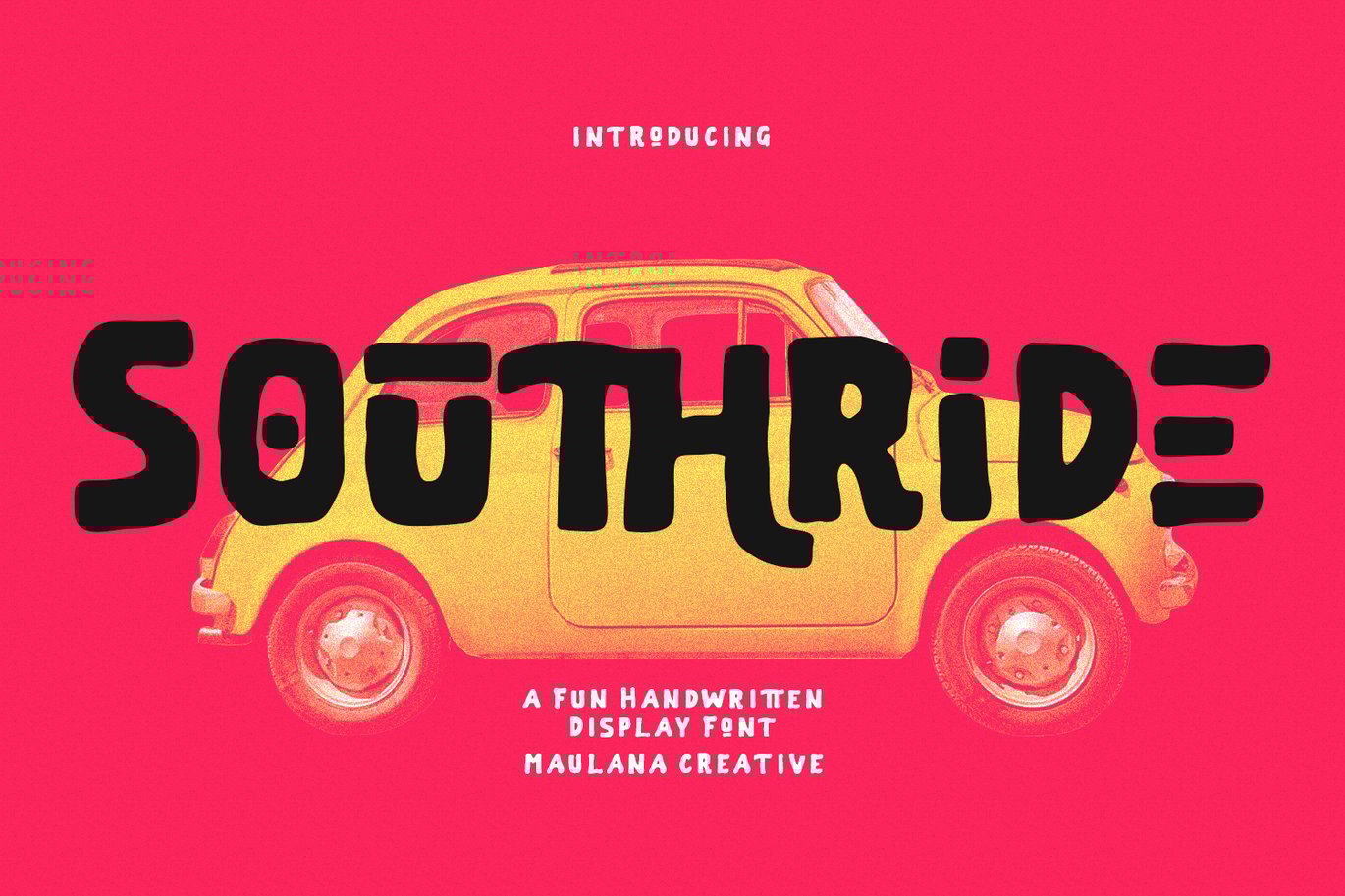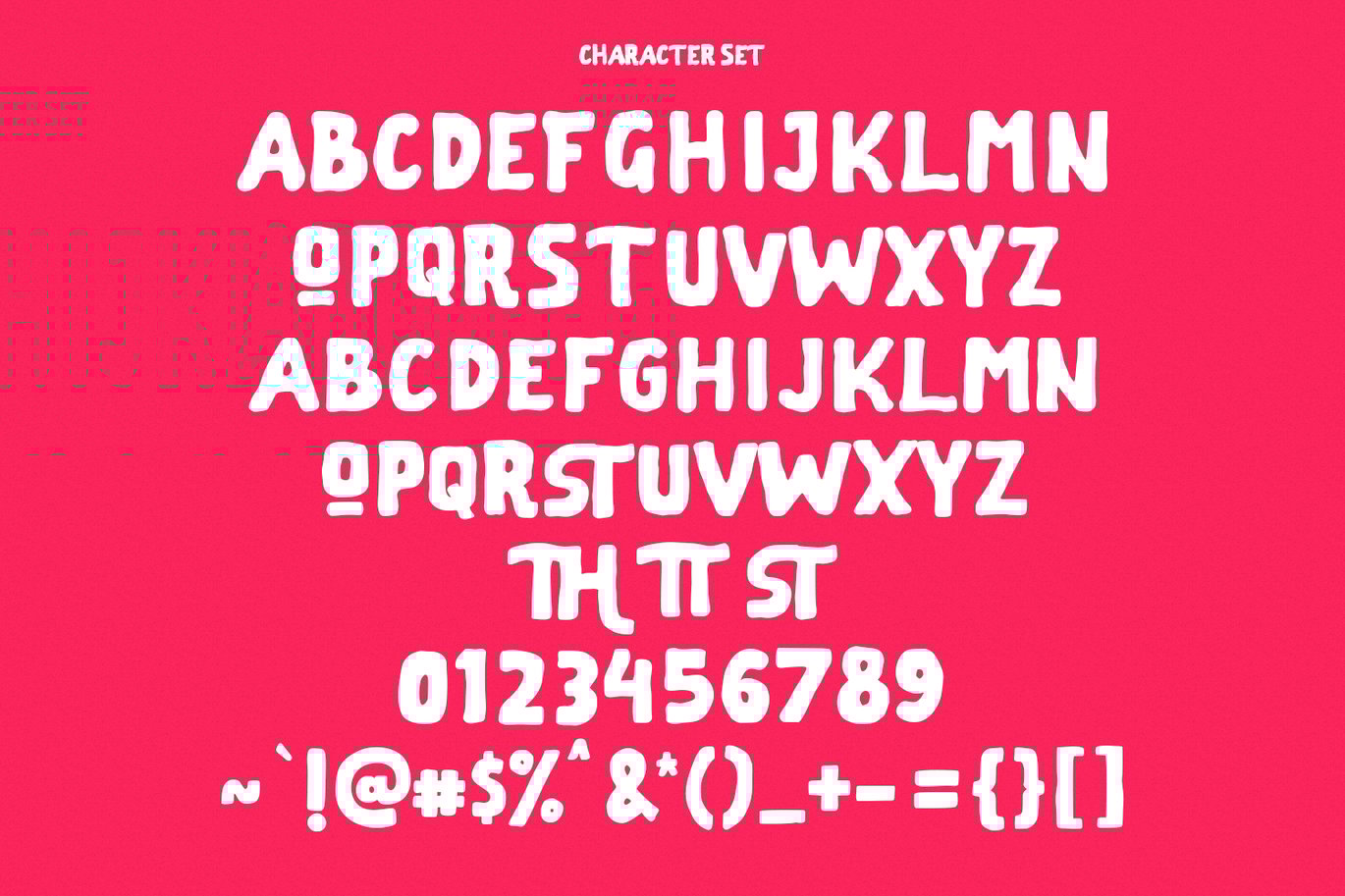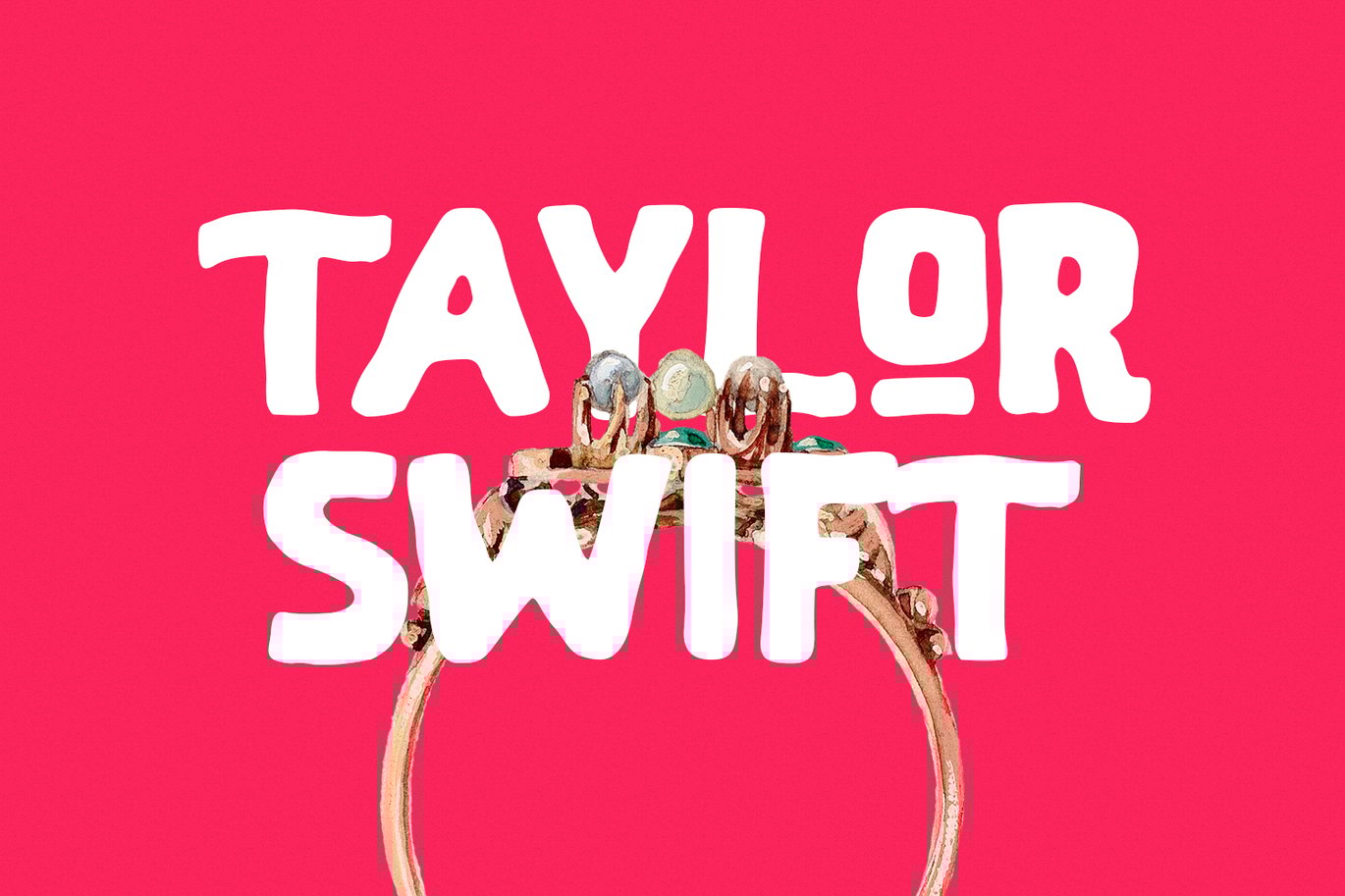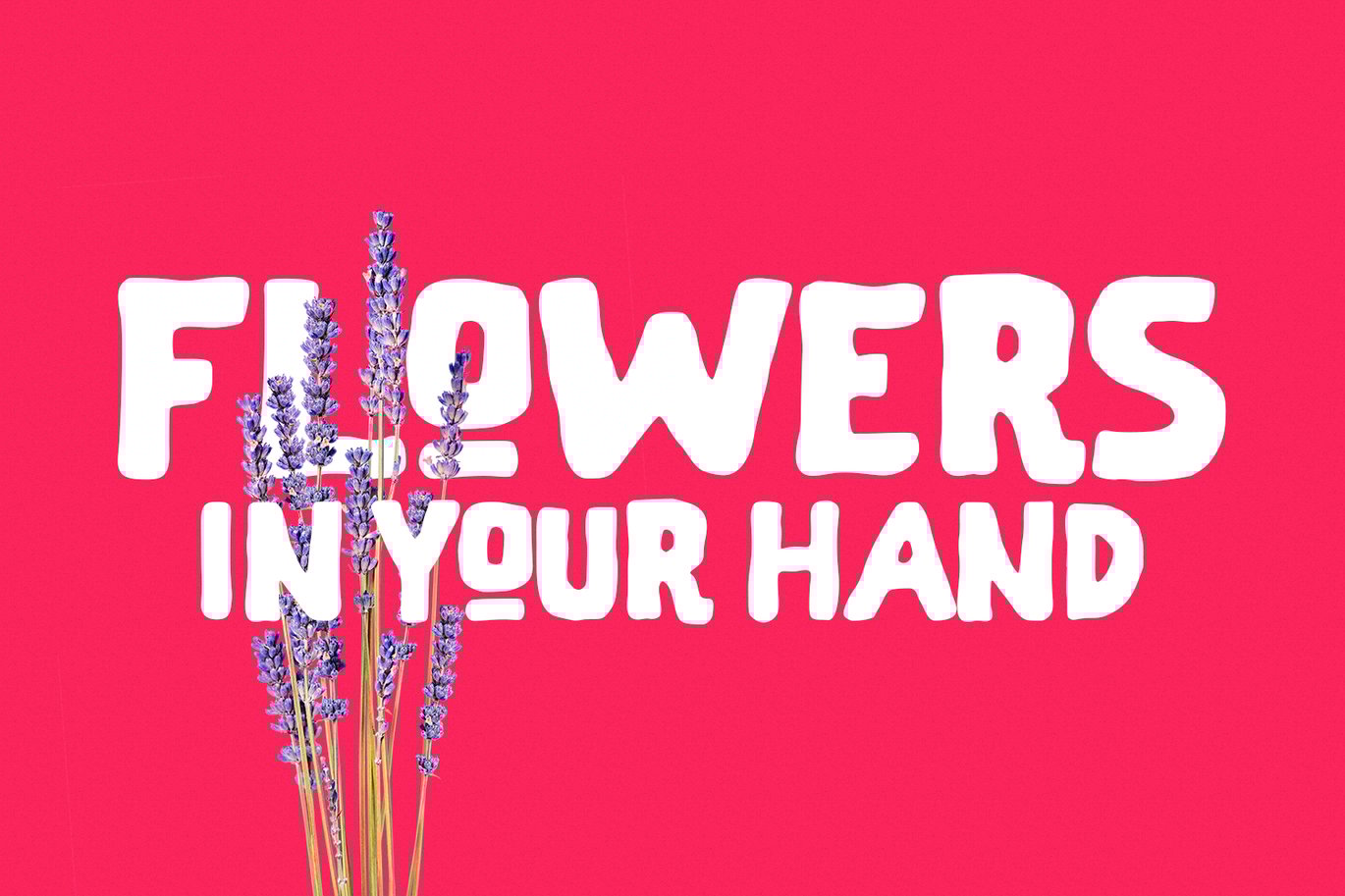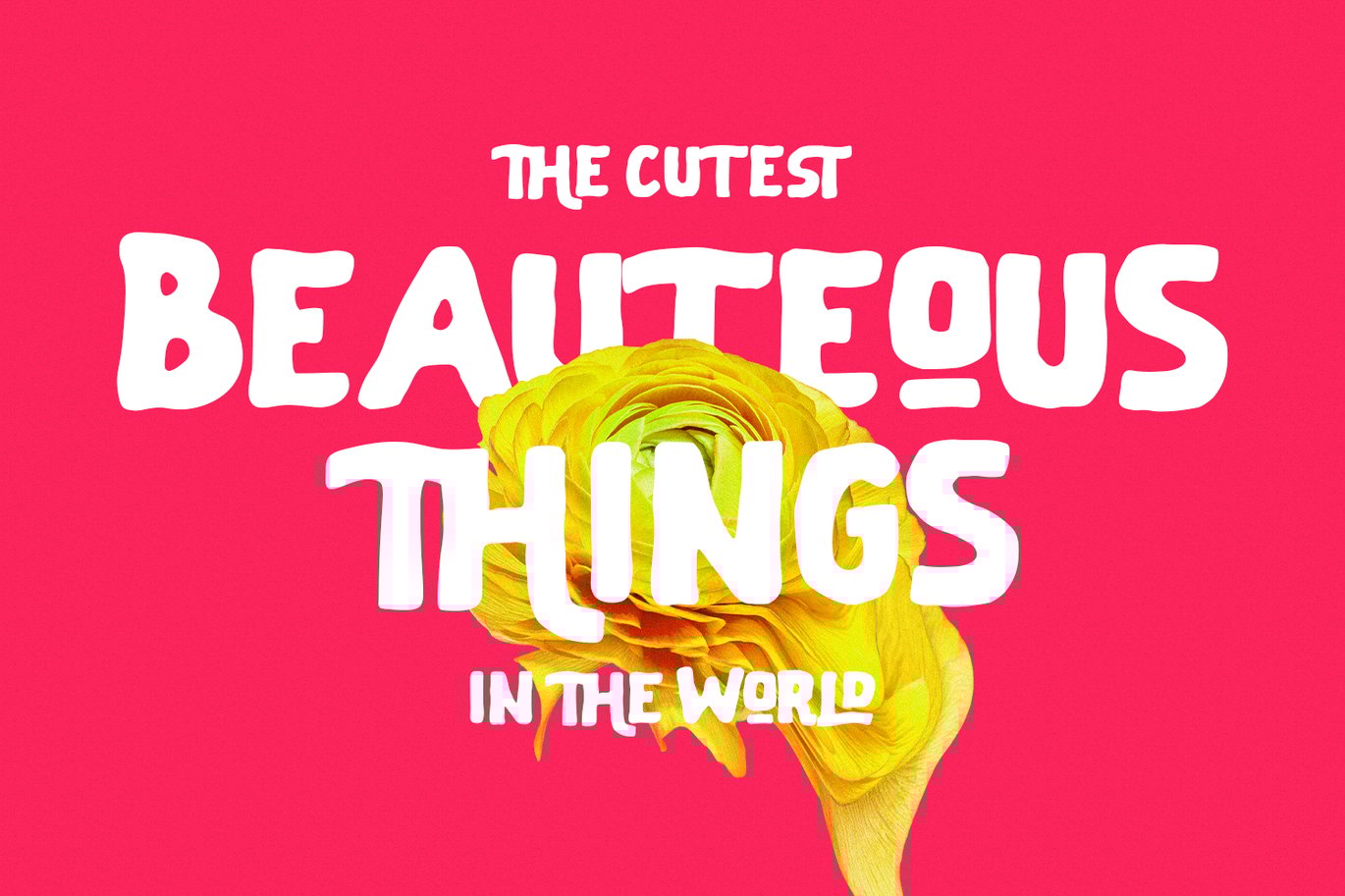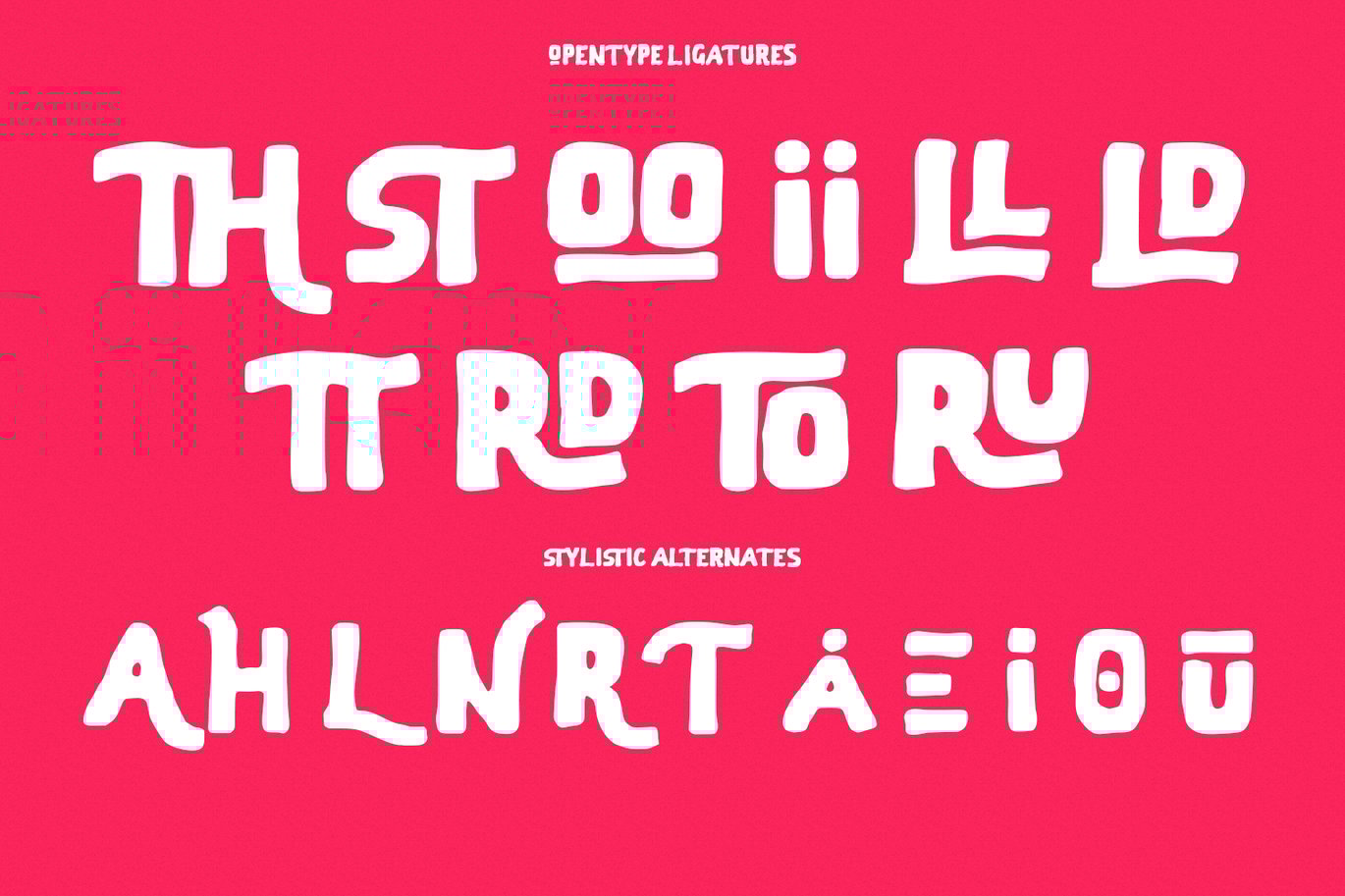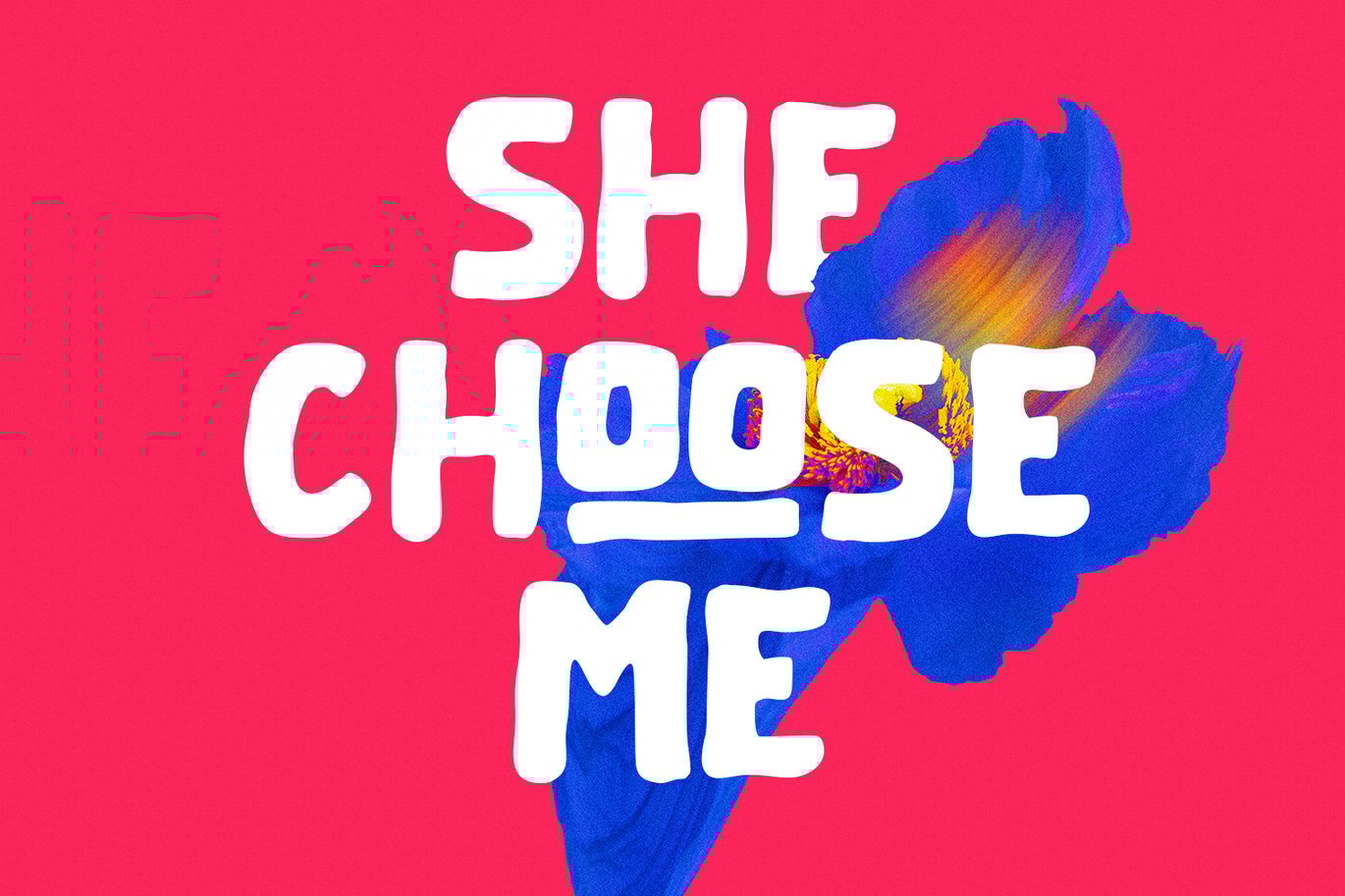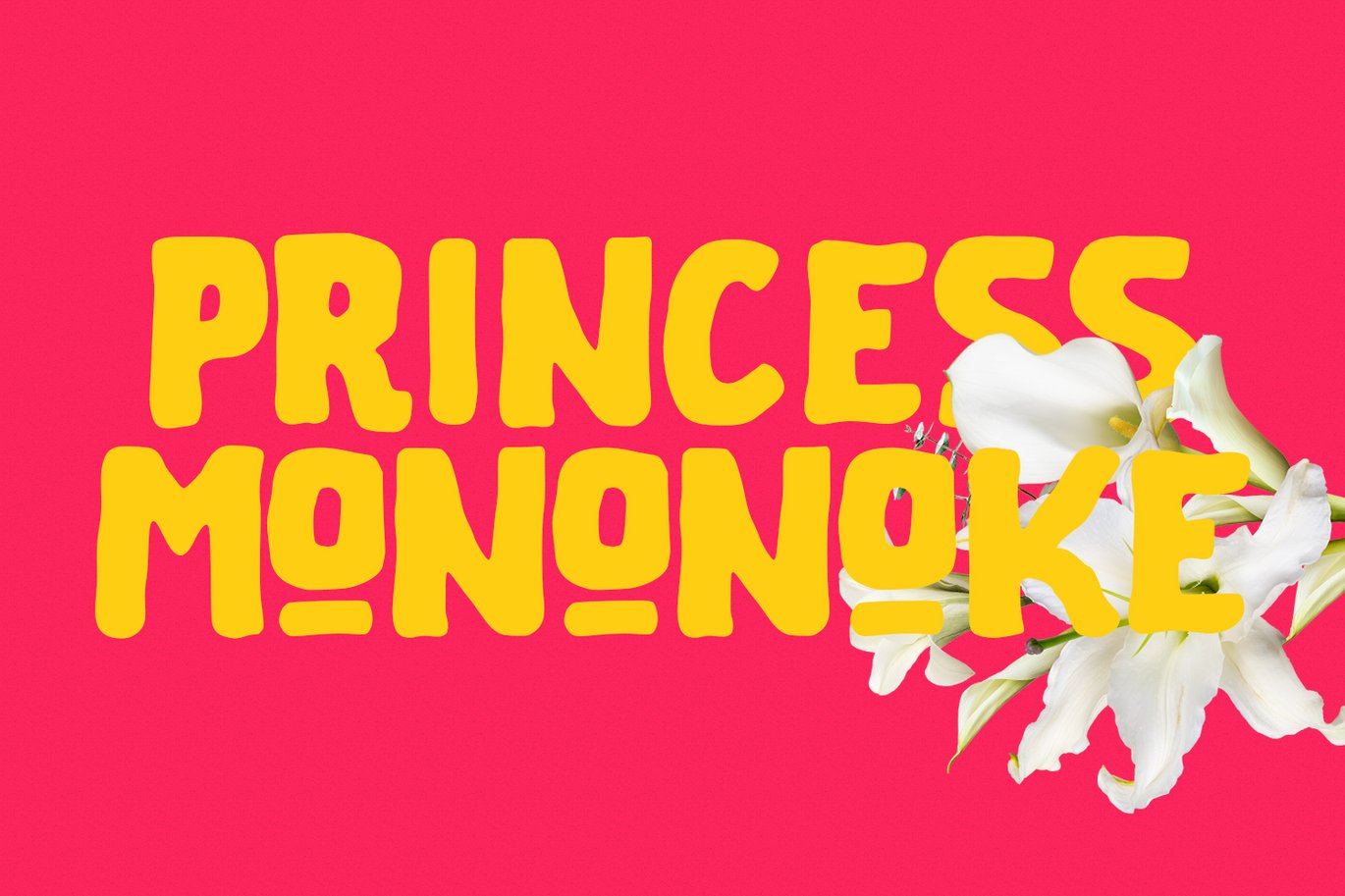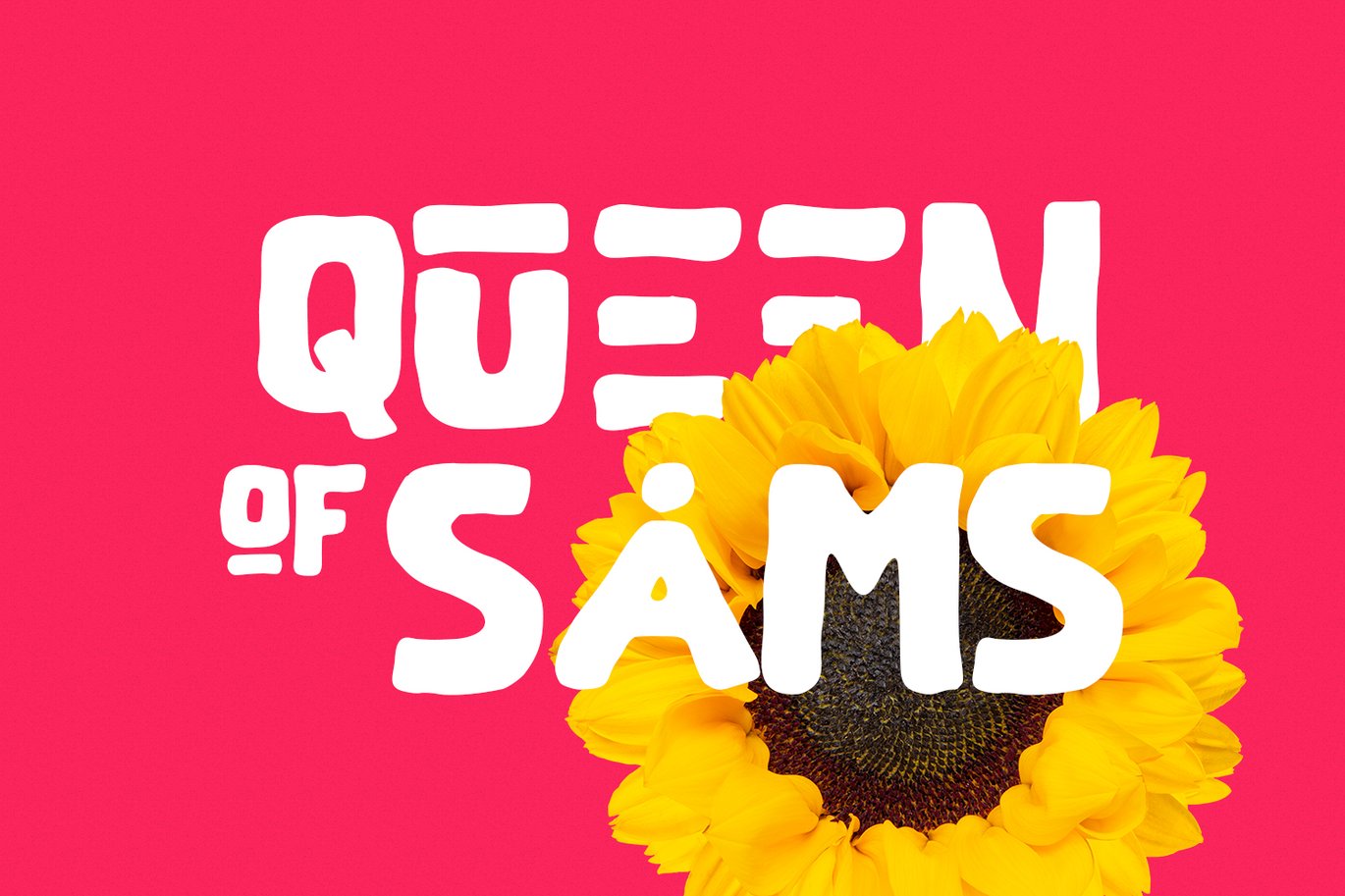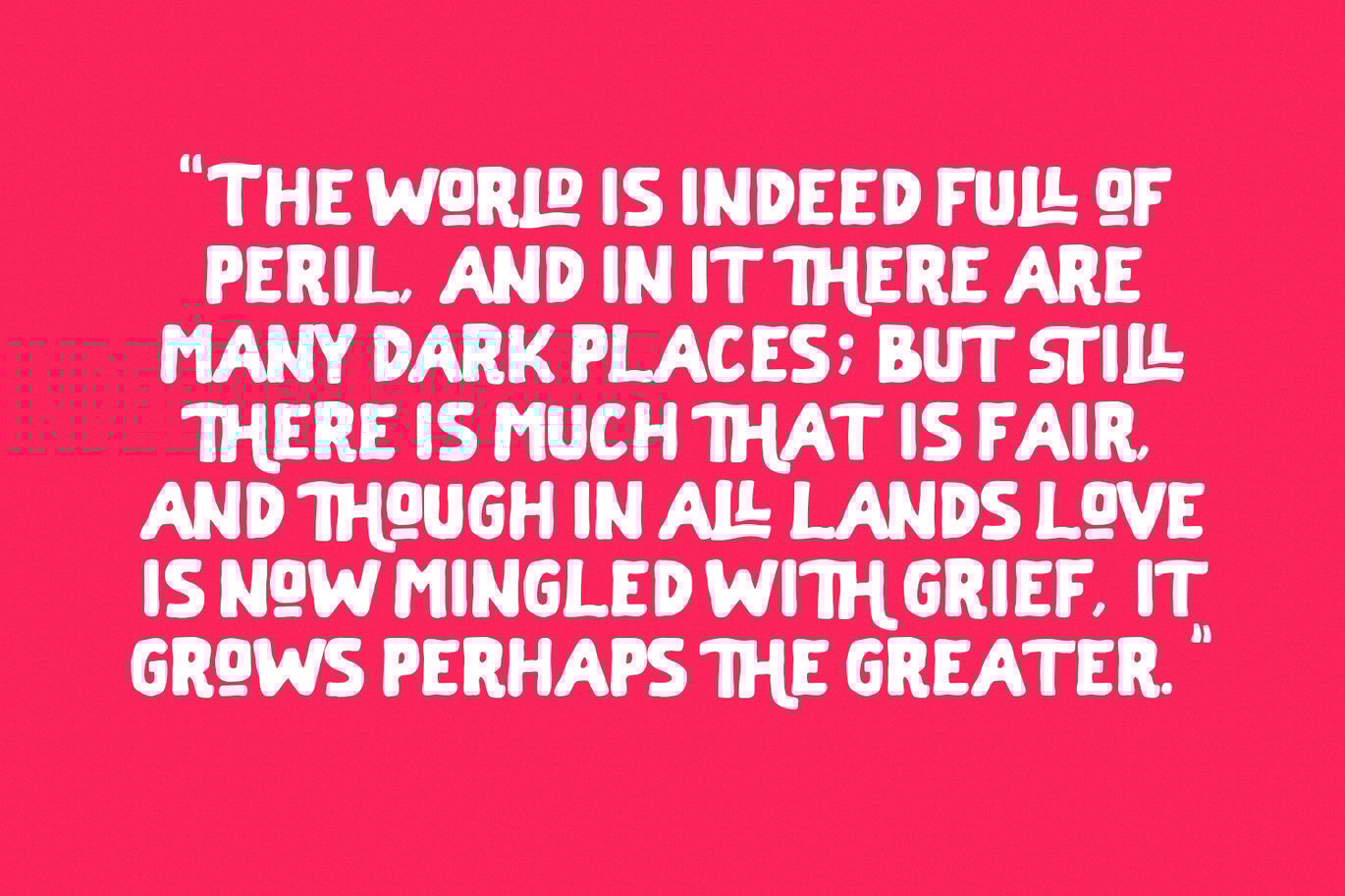
Southride Handwritten Font
Southride is a quirky fun casual handwritten font. With wavy bold stroke, fun character. To give you an extra creative work. Southride font support multilingual more than 100+ language. This font is good for logo design, Social media, Movie Titles, Books Titles, a short text even a long text letter and good for your secondary text font with sans or serif. Make a stunning work with Southride font.